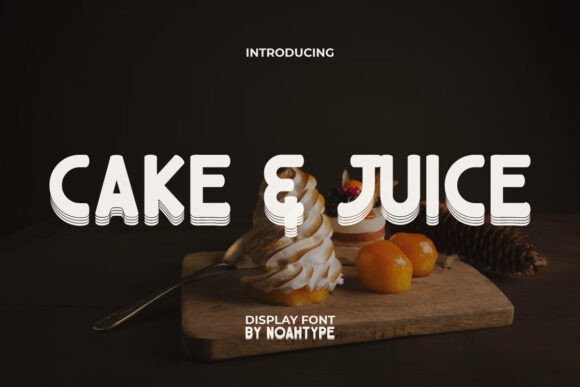
Cake & Juice Font: Elevate Your Designs with a Stylish 3D Modern Decorative Display Font
In the world of graphic design, fonts play a crucial role in conveying the message and aesthetic of a brand or project. With the vast array of fonts available, it can be challenging to find the perfect one that stands out and captures the essence of your design. However, if you’re looking for a font that exudes style, modernity, and creativity, look no further than the Cake & Juice Font. This 3D modern decorative display font is designed to take your designs to the next level, and in this article, we’ll explore its features, uses, and benefits.
What is Cake & Juice Font?
Cake & Juice Font is a 3D modern decorative display font that features a stylish and unique design. The font boasts a shadow effect on the letters, giving it a distinctive and eye-catching appearance. One of the standout features of this font is the lines at the bottom of the letters, which resemble the layers of a cake. This design element adds a touch of whimsy and creativity, making it perfect for designs that require a dash of personality.
Key Features of Cake & Juice Font
- 3D Modern Design: The font features a modern 3D design that gives it a sleek and contemporary look.
- Shadow Effect: The shadow effect on the letters adds depth and dimension to the font.
- Cake Layer Design: The lines at the bottom of the letters resemble the layers of a cake, adding a creative touch.
- Stylish and Decorative: The font has a stylish and decorative appearance, making it perfect for designs that require a touch of elegance.
Uses of Cake & Juice Font
Cake & Juice Font is a versatile font that can be used in a wide range of designs, including:
Design Applications
- Brand Image: Use Cake & Juice Font to create a unique and memorable brand image that stands out from the competition.
- Business Card: Add a touch of style and sophistication to your business cards with this elegant font.
- Catalog: Use the font to create eye-catching catalogs that showcase your products in a stylish and modern way.
- Cover: Create stunning book covers, magazine covers, or CD covers with Cake & Juice Font.
- Custom Design: The font can be used in custom designs, such as brochures, flyers, and posters.
- Label: Use the font to create stylish labels for products, packaging, or promotional materials.
- Menu: Add a touch of elegance to restaurant menus, cafe menus, or food packaging with Cake & Juice Font.
- Poster: Create stunning posters for events, concerts, or exhibitions with this eye-catching font.
- Quote: Use the font to create inspirational quotes, social media graphics, or blog posts.
- Web: The font can be used on websites, landing pages, or online advertisements.
Benefits of Using Cake & Juice Font
Using Cake & Juice Font in your designs offers several benefits, including:
Why Choose Cake & Juice Font?
- Unique Design: The font’s unique design sets it apart from other fonts, making your designs stand out.
- Versatility: The font can be used in a wide range of designs, from branding to web design.
- Elegance: The font’s elegant and stylish appearance adds a touch of sophistication to your designs.
- Creativity: The cake layer design element adds a creative touch to your designs, making them more engaging.
- Easy to Read: Despite its decorative nature, the font is easy to read, making it perfect for body text or headings.
Tips for Using Cake & Juice Font
To get the most out of Cake & Juice Font, here are some tips to keep in mind:
Best Practices
- Use it Sparingly: While the font is eye-catching, it’s best to use it sparingly to avoid overwhelming the design.
- Pair it with a Simple Font: Pair Cake & Juice Font with a simple font for body text to create contrast and visual interest.
- Experiment with Colors: Experiment with different colors to find the perfect combination that complements the font.
- Pay Attention to Size: Make sure to adjust the font size according to the design to ensure it’s legible and visually appealing.
Cake & Juice Font is a stylish and modern decorative display font that can elevate your designs to the next level. With its unique 3D design, shadow effect, and cake layer design element, it’s perfect for designs that require a touch of elegance and creativity. Whether you’re a graphic designer, entrepreneur, or small business owner, this font is sure to impress. So, why settle for ordinary fonts when you can have a font that stands out from the crowd? Try Cake & Juice Font today and take your designs to new heights!